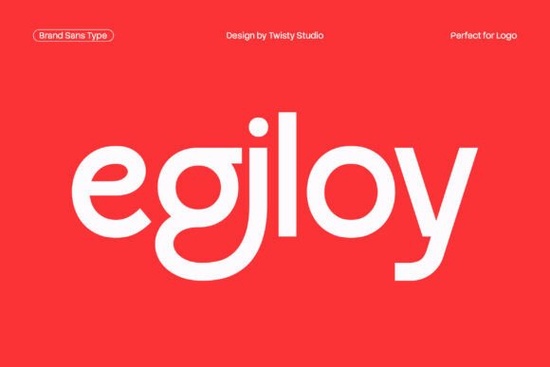
If you're looking for a clean, modern sans-serif that works well across branding, packaging, or digital projects, the Egiloy Font is worth considering. Designed with minimalism and clarity in mind, it avoids unnecessary flourishes while maintaining visual balance making it especially useful for small businesses, designers, and print-on-demand creators who need a dependable typeface that doesn’t distract from their message.
Egiloy’s strength lies in its quiet confidence. The letterforms are simple but not sterile, with just enough subtle detailing to keep things visually engaging without compromising readability. Whether you’re designing a logo, setting product labels, or laying out a social media graphic, this font holds up well at both large and small sizes.
Why choose Egiloy for branding and everyday design?
Branding fonts need to be versatile, consistent, and legible and Egiloy checks all three boxes. Its neutral tone makes it adaptable to different industries, from wellness and lifestyle brands to tech startups or boutique retailers. Because it lacks strong stylistic quirks, it pairs easily with other fonts or design elements without clashing.
For crafters and hobbyists creating custom mugs, T-shirts, or greeting cards, Egiloy offers a polished look without requiring advanced typography skills. You don’t have to worry about odd spacing or hard-to-read characters it just works.
How does it compare to similar minimalist sans-serifs?
Fonts like Pistacho lean slightly more playful with rounded terminals and open counters, giving them a friendlier vibe. Egiloy, by contrast, stays firmly in professional territory think crisp business cards, editorial layouts, or app interfaces where neutrality supports usability.
That said, both fonts belong to the same broad family of contemporary sans-serifs built for clarity. If your project calls for warmth and approachability, Pistacho might be a better fit. But if you’re aiming for precision, calmness, and understated elegance, Egiloy delivers consistently.
Where can you use Egiloy effectively?
Because of its balanced proportions and restrained design, Egiloy performs well in a variety of contexts:
- Logos and wordmarks – especially for brands that want to appear modern but not trendy
- Product packaging – clear labeling that doesn’t compete with imagery or color
- Web and app interfaces – headings and short blocks of text where legibility matters
- Print materials – brochures, business cards, and stationery that benefit from a refined aesthetic
- Craft projects – vinyl cutting, embroidery digitizing, or sublimation prints where clean lines matter
It’s also worth noting that Egiloy scales gracefully. Some minimalist fonts lose definition when printed small or viewed on low-resolution screens, but Egiloy maintains its integrity thanks to thoughtful spacing and open character shapes.
Tips for pairing Egiloy with other fonts
Since Egiloy is so neutral, it plays well with a range of companions:
- Pair it with a serif font that has moderate contrast (like a transitional or slab serif) for editorial or luxury branding.
- Combine it with a geometric sans-serif for a tech-forward or architectural feel.
- Use it alone in all-caps for ultra-minimalist designs its even weight distribution prevents it from feeling too harsh.
Avoid pairing it with overly decorative or script fonts unless there’s strong visual hierarchy; otherwise, the contrast can feel jarring rather than complementary.
Is Egiloy right for your next project?
If your goal is to communicate clearly without drawing attention to the typography itself, Egiloy is a solid choice. It won’t shout but it will support your message with quiet reliability. That’s especially valuable for small business owners or solo creators who need one dependable font that works across multiple platforms and products.
If you answered yes to most of these, Egiloy could be the practical, timeless typeface your toolkit has been missing.